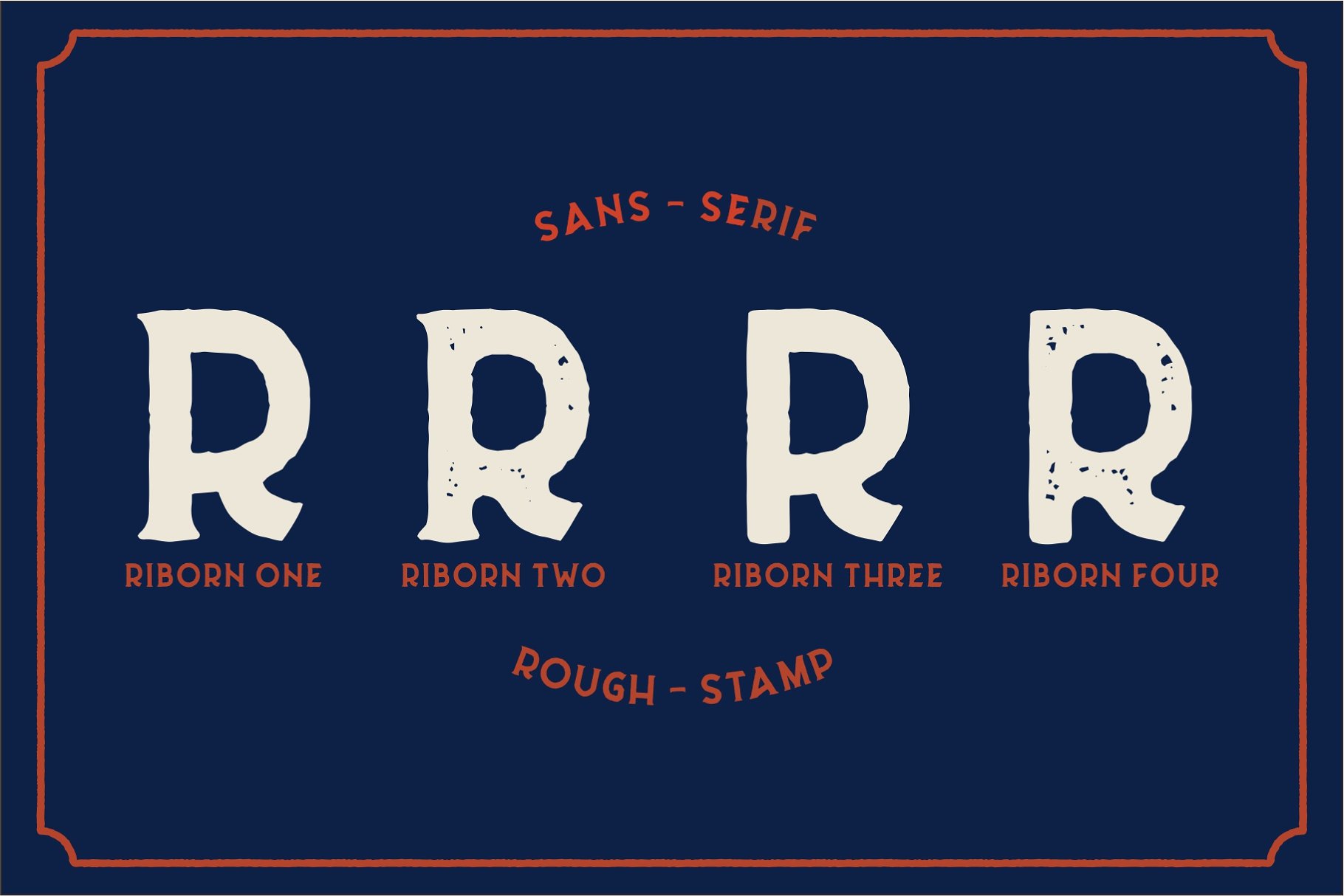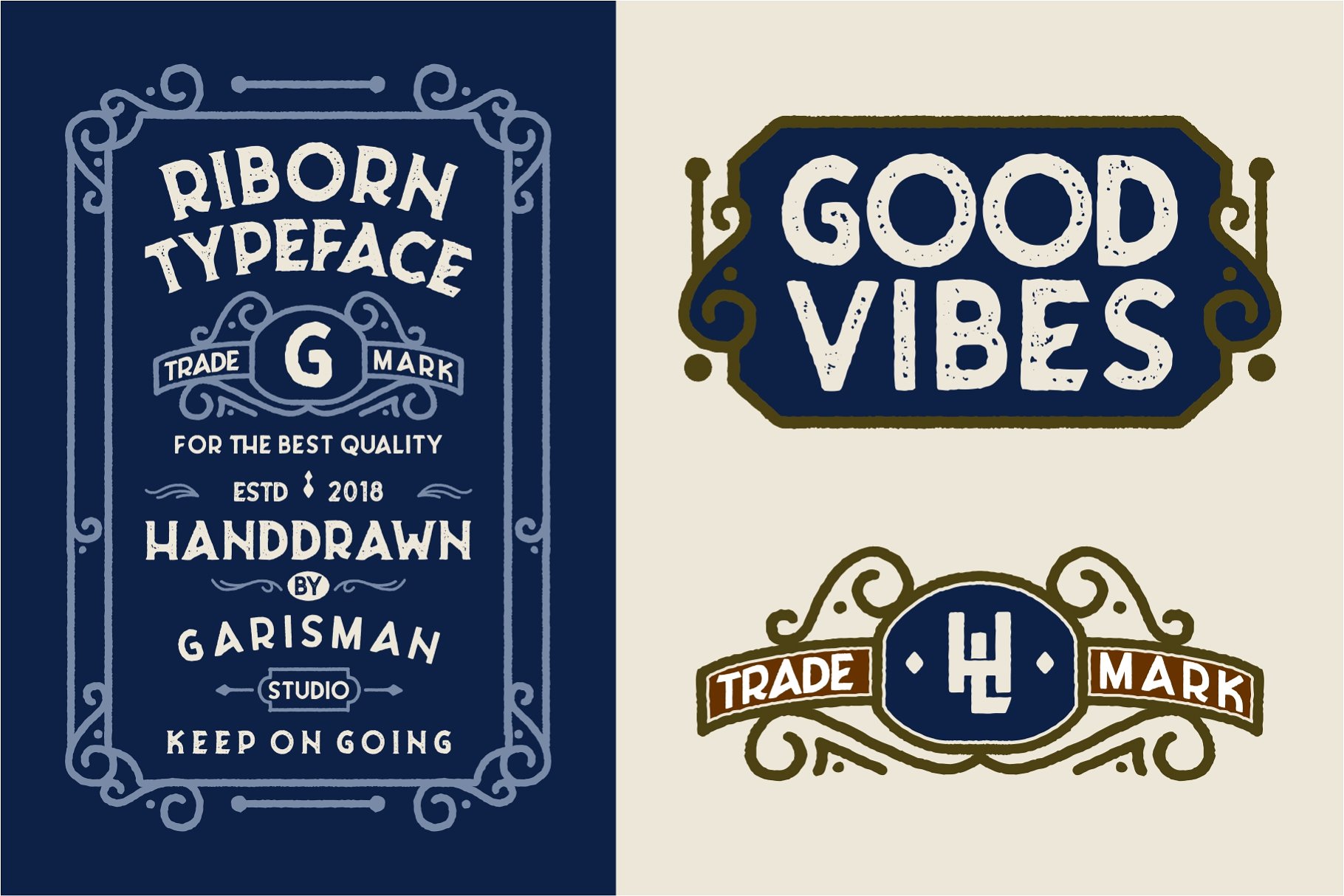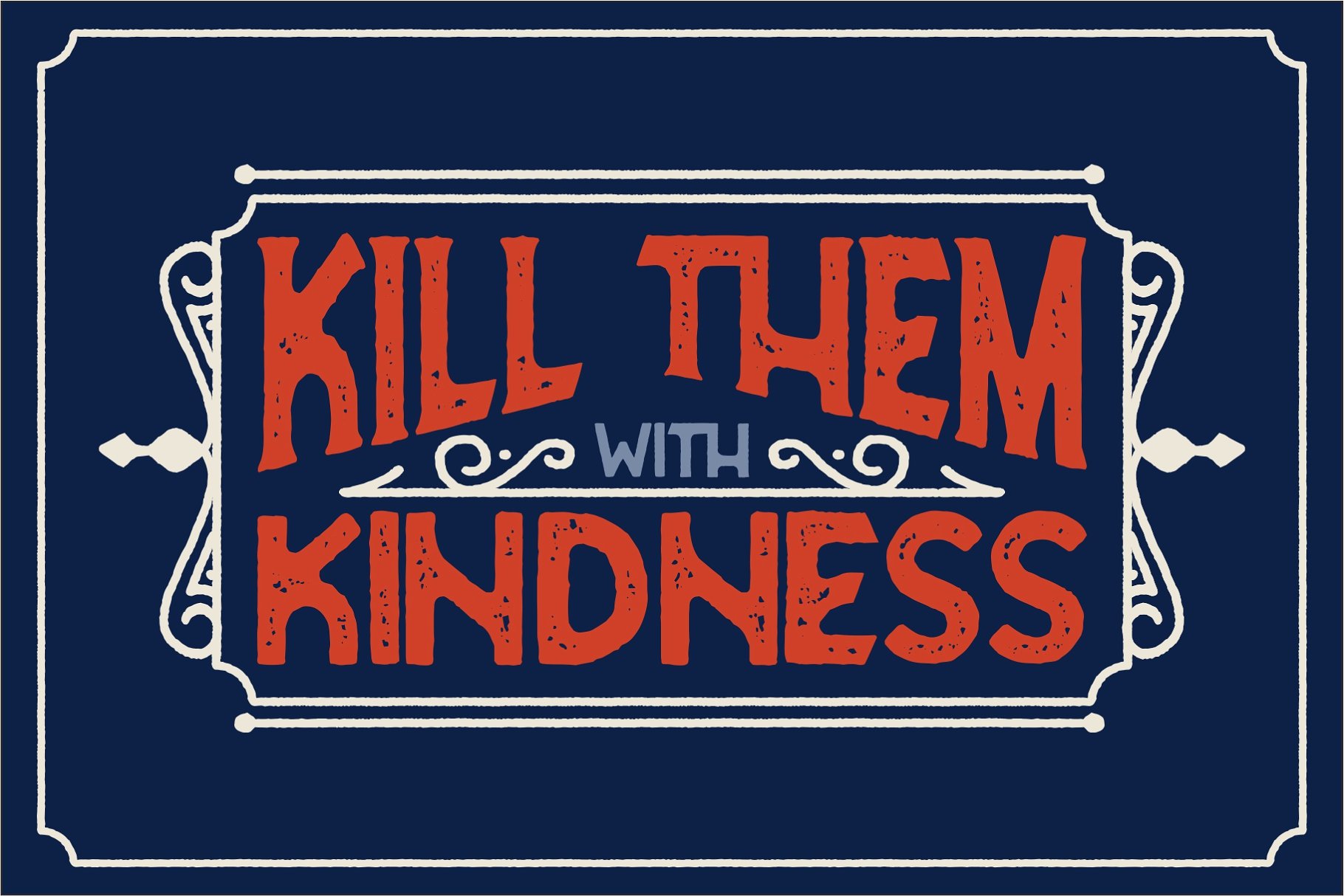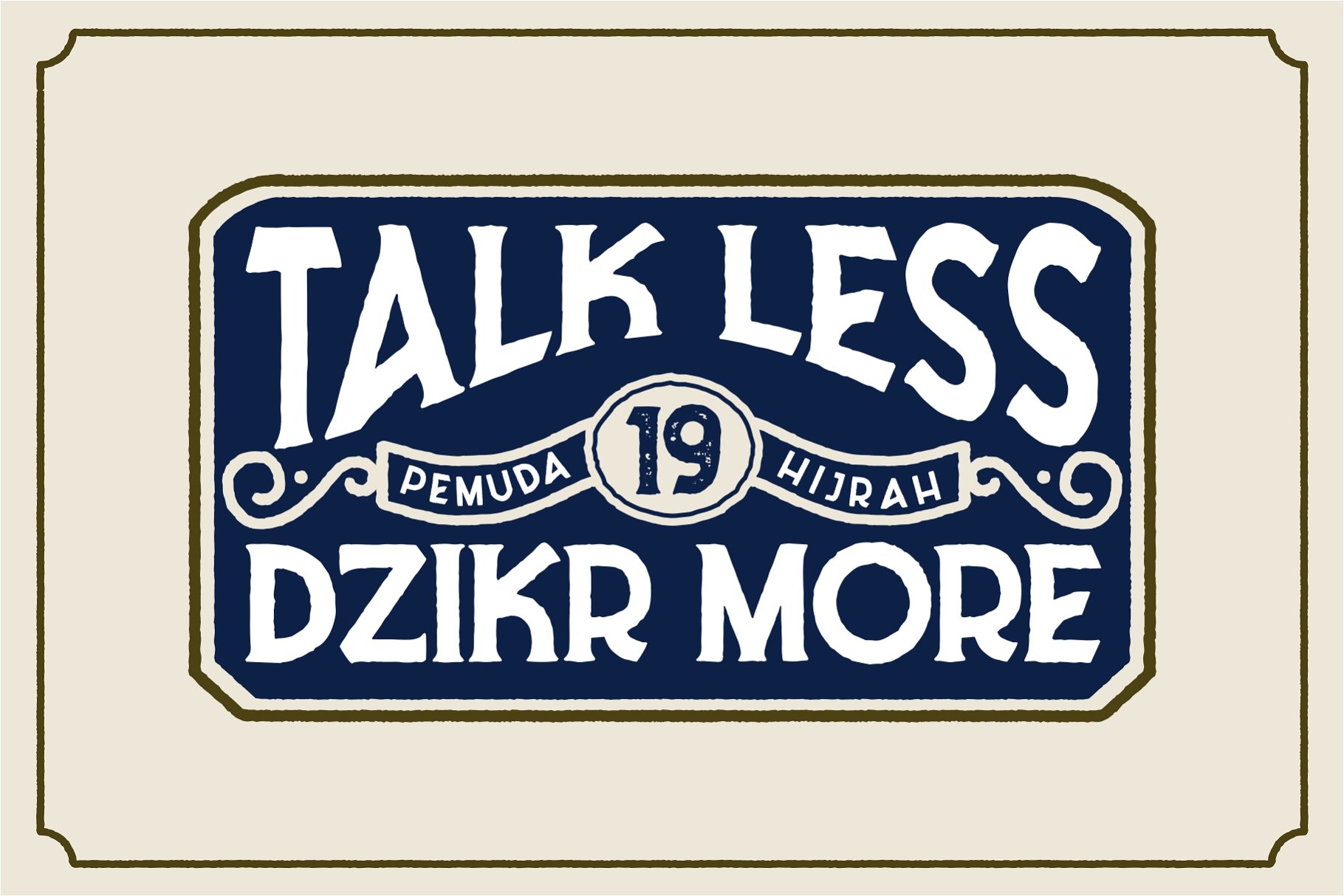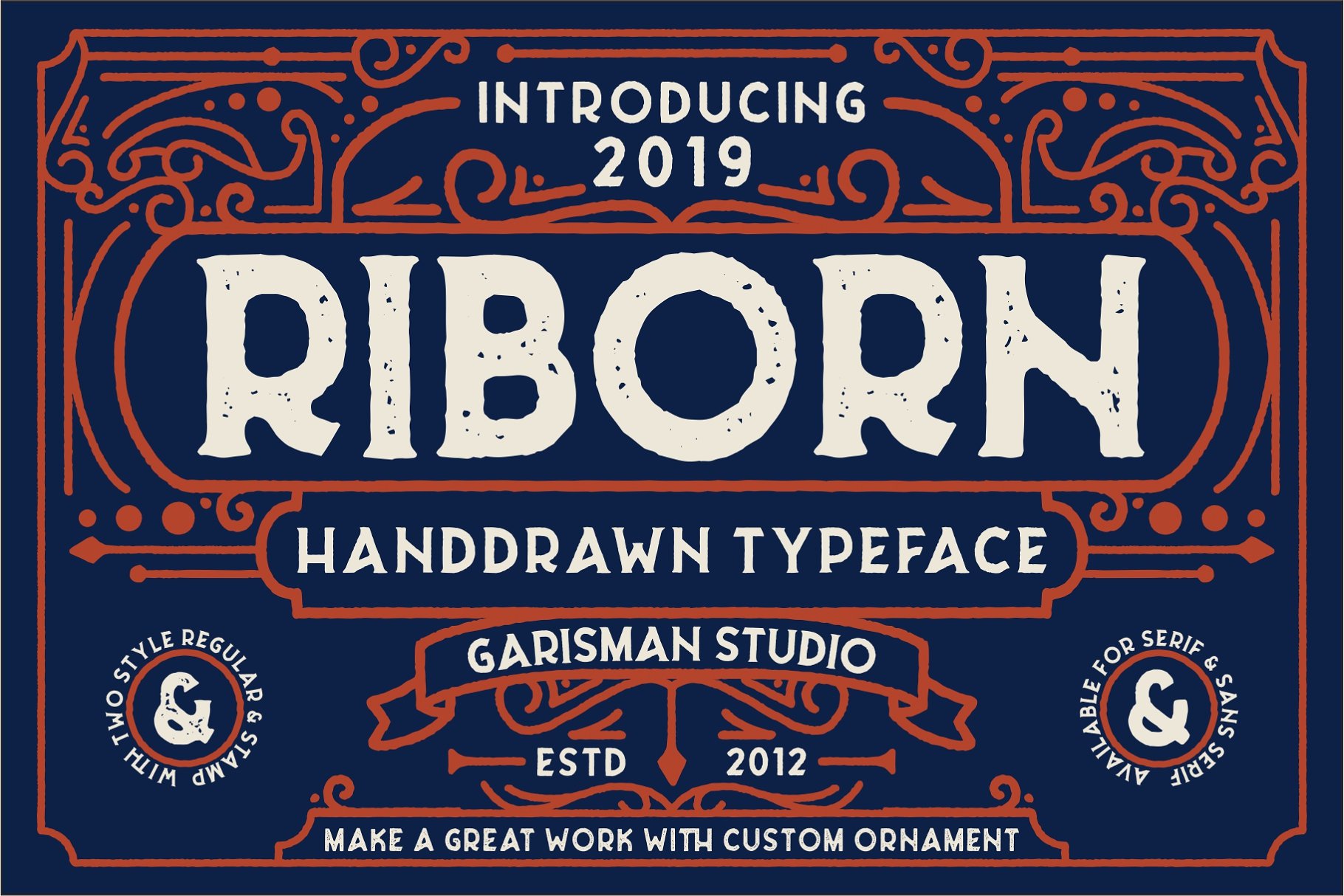
Riborn Typeface
Introducing Riborn Font. It is design and shared by Garisman Std. Riborn Typeface begins with light streaks that form a vintage style with a touch of rough and stamp. RIBORN with 4 fonts in number, as “ribs” in your design work, and able to beautify also strengthen your work in the form of type logos, typography, handlettering, packaging, t-shirts, labels, and much more.